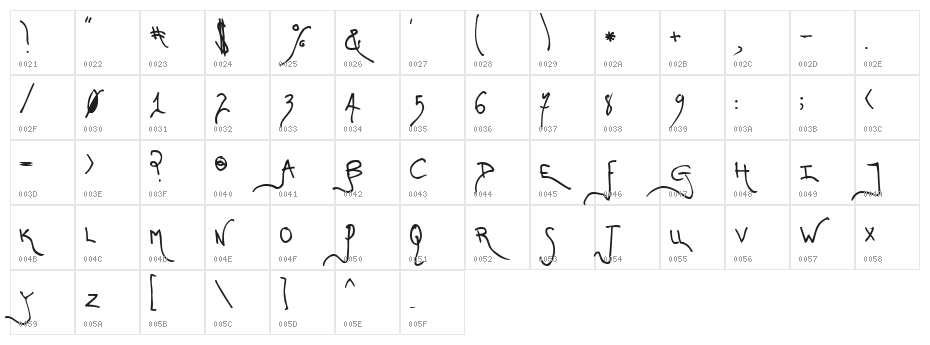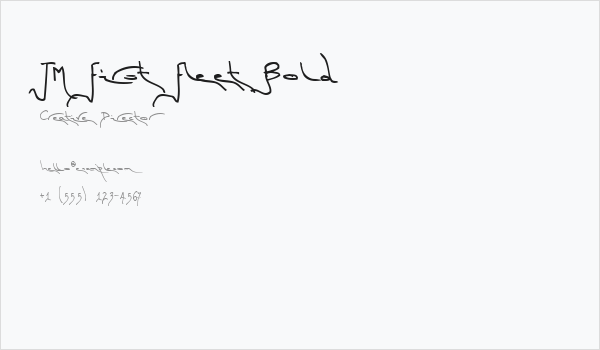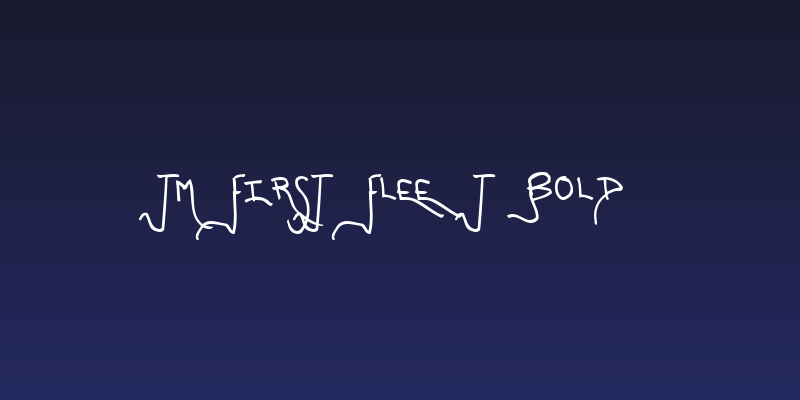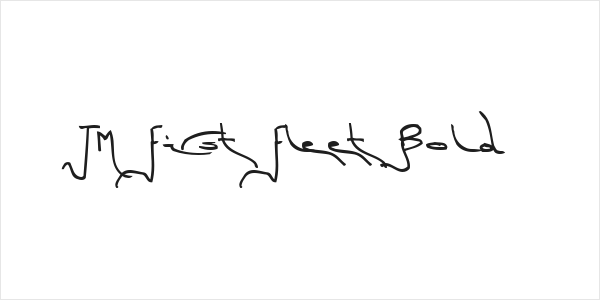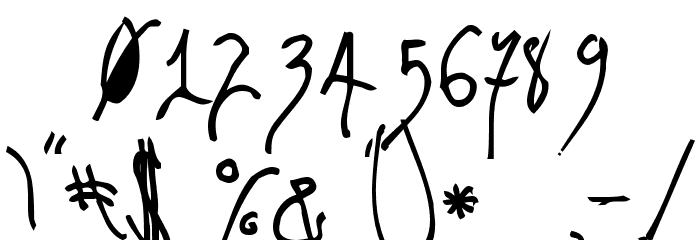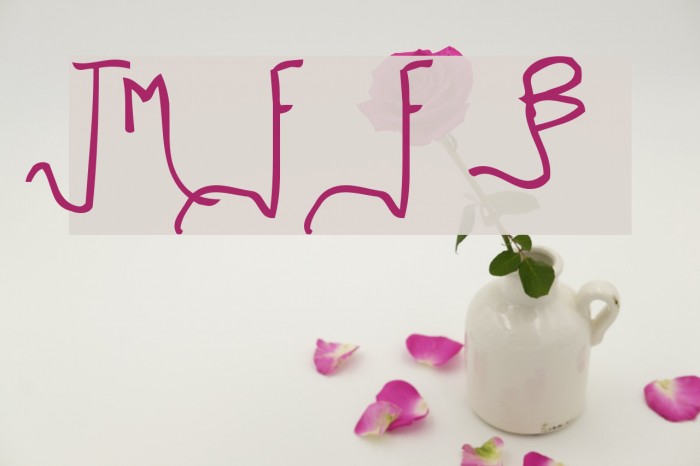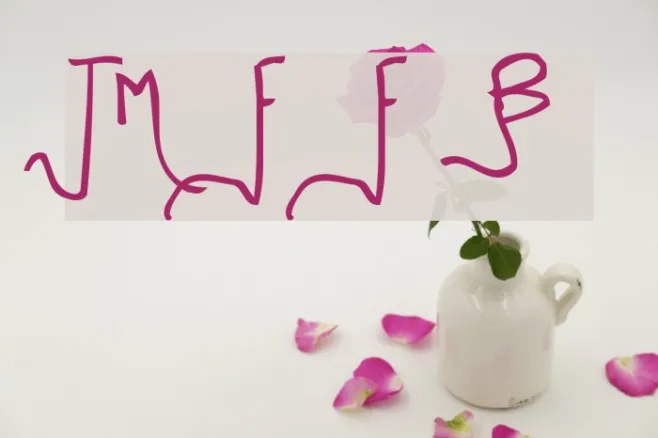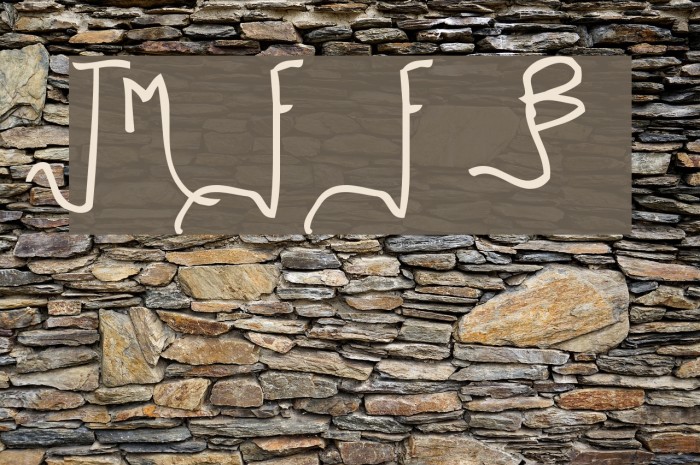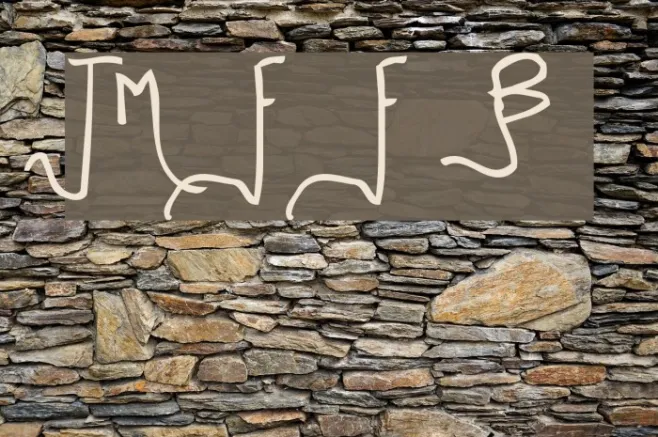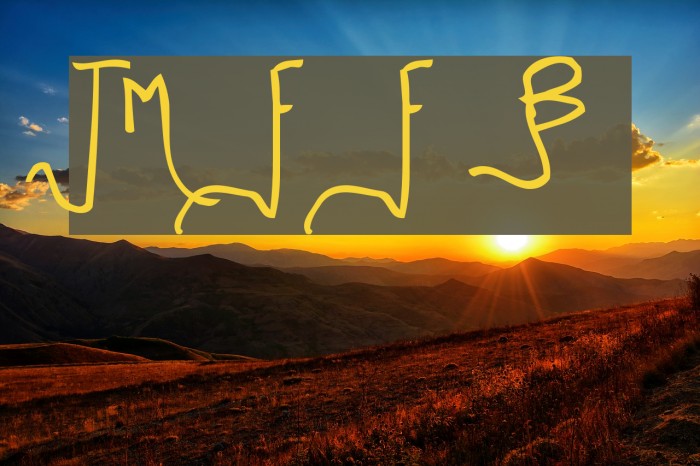
TM First Fleet Bold Font
TM First Fleet Bold Description
This font exhibits a unique, hand-drawn style with an artistic flair. The characters are highly stylized, featuring elongated strokes and a dynamic, flowing appearance. The uppercase letters are bold and expressive, while the lowercase letters maintain a consistent, whimsical design. Numbers and special characters follow the same artistic theme, adding to the font's overall cohesive look. The font's irregular shapes and playful curves give it a distinctive personality, making it stand out in creative projects.